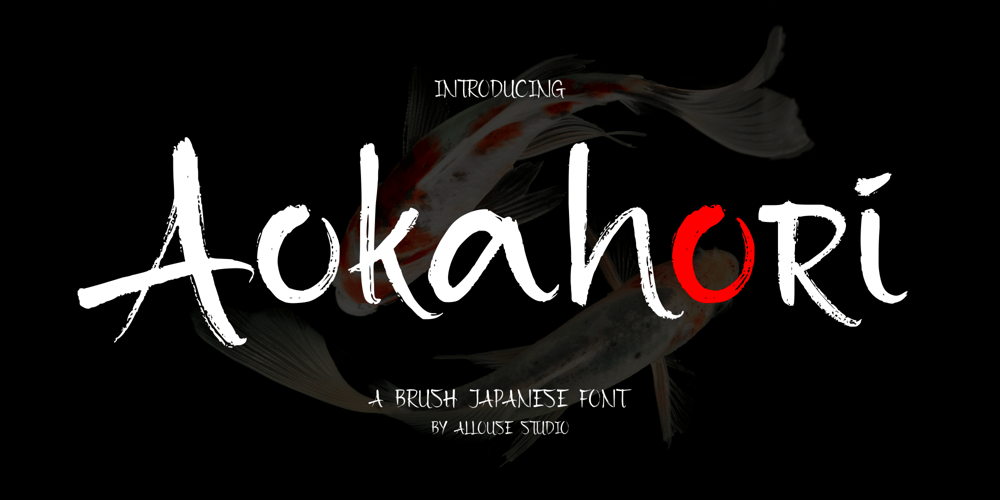
Aokahori Font Family was designed by Fachrizal Yusuf and published by Allouse Studio. Aokahori contains 1 styles and family package options. Proudly Presenting, Aokahori A Brush Japanese Font.Aokahori is perfect for any titles, logo, product packaging, branding project, megazine, social media, wedding, or just used to express words above the background.Aokahori also come with Multi-Lingual Support.Enjoy the font, feel free to comment or feedback, send me PM or email. Thank You!